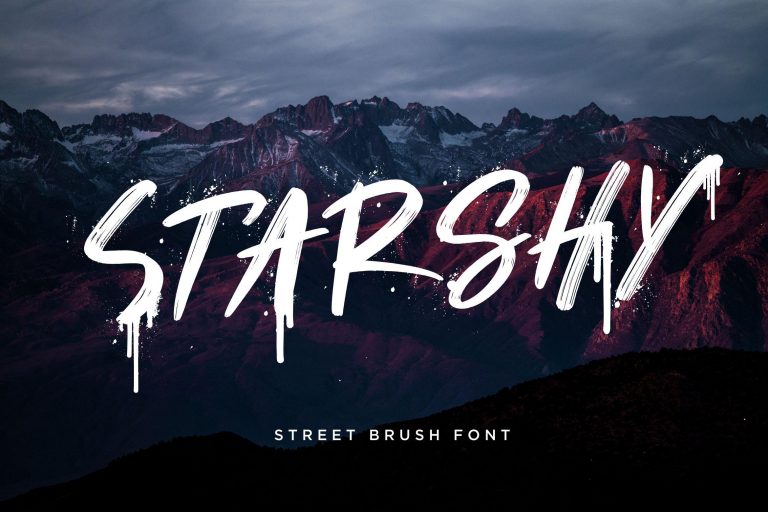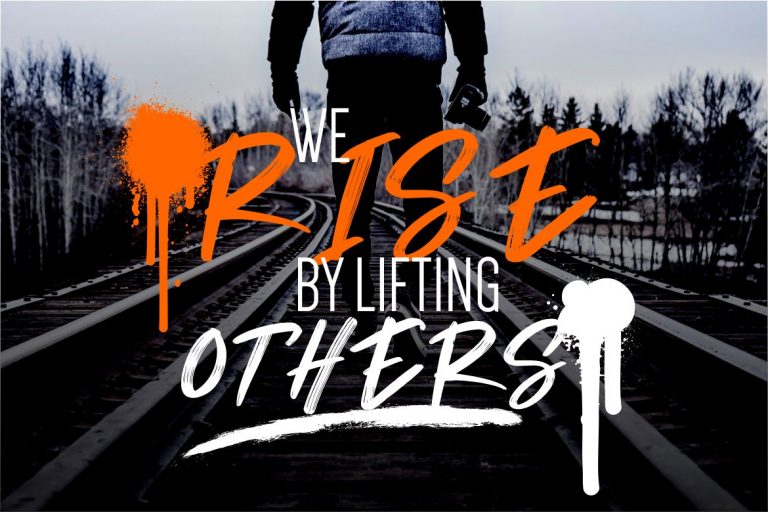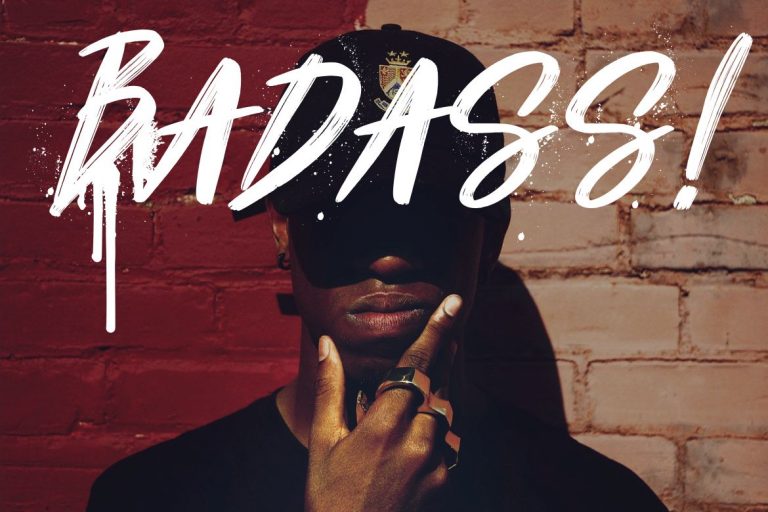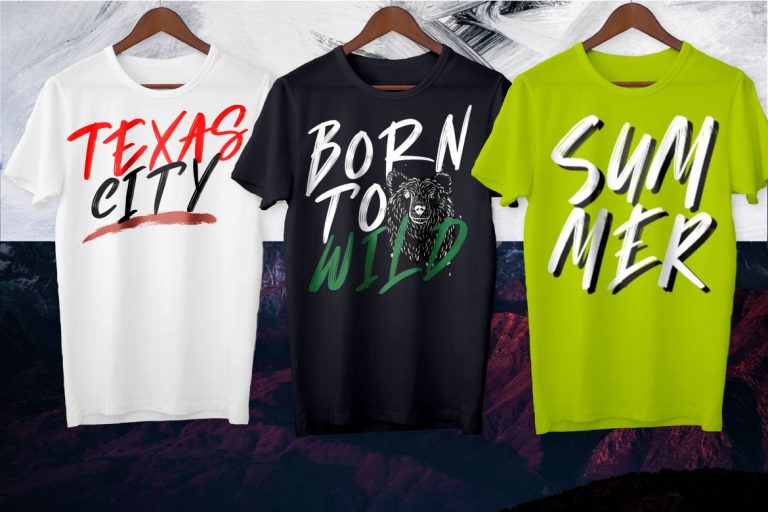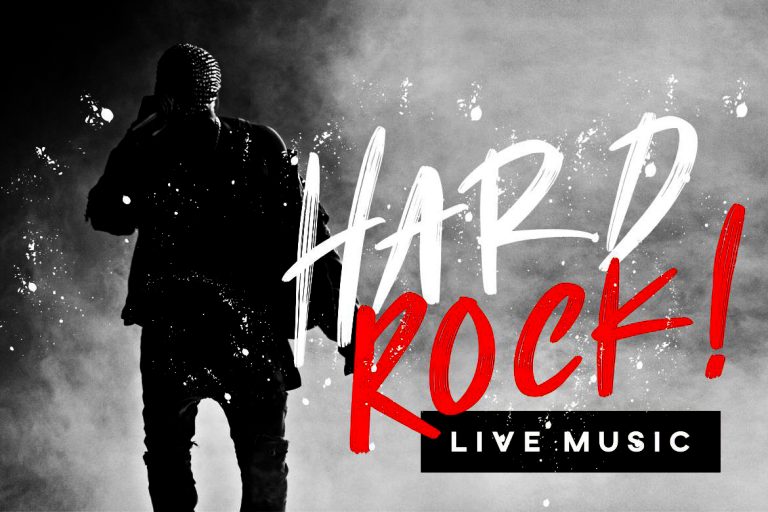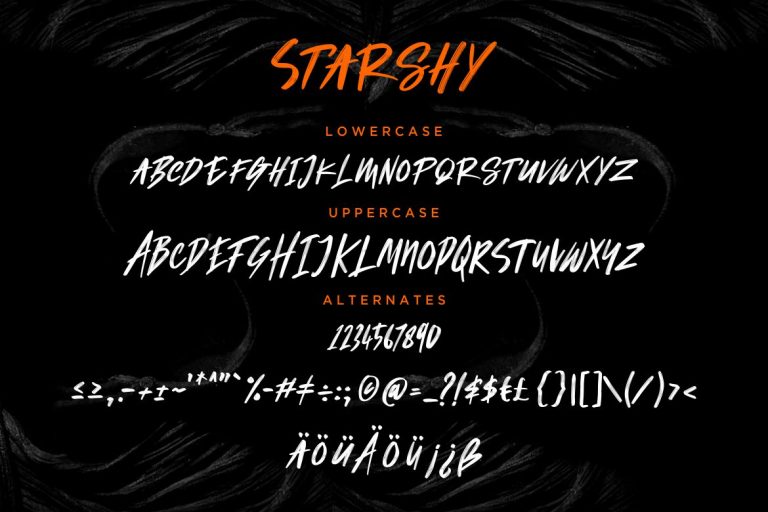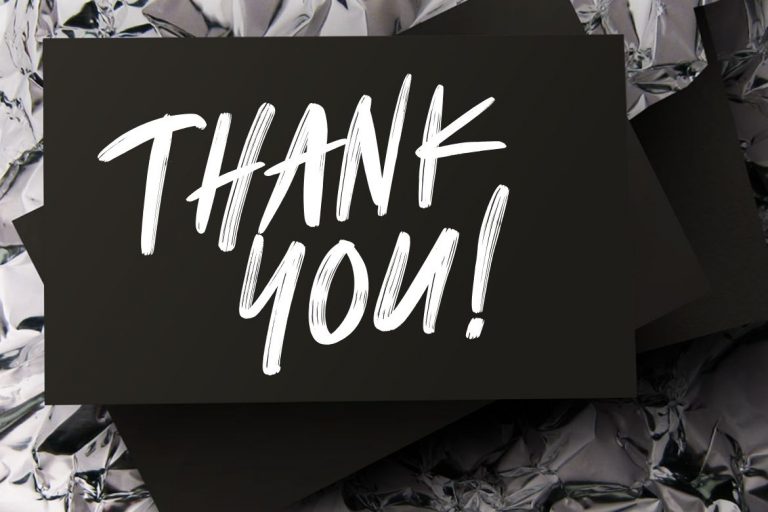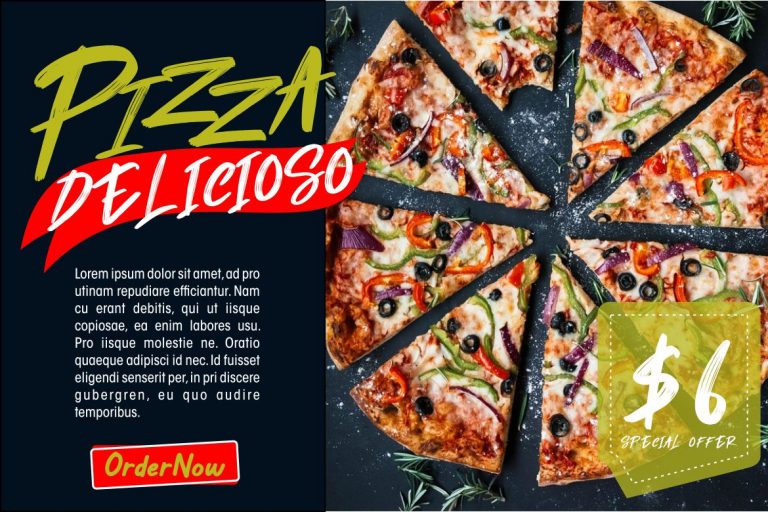
Starshy is a brush font with street graffiti style and scratch effect make this font looks bold and natural.
Starshy is perfect for branding projects, logo, wedding designs, social media posts, advertisements, product packaging, product designs, label, photography, watermark, invitation, stationery and any projects that need handwriting taste.
- Fonts include multilingual support for; ä ö ü Ä Ö Ü ß ¿ ¡
Starshy Street Brush